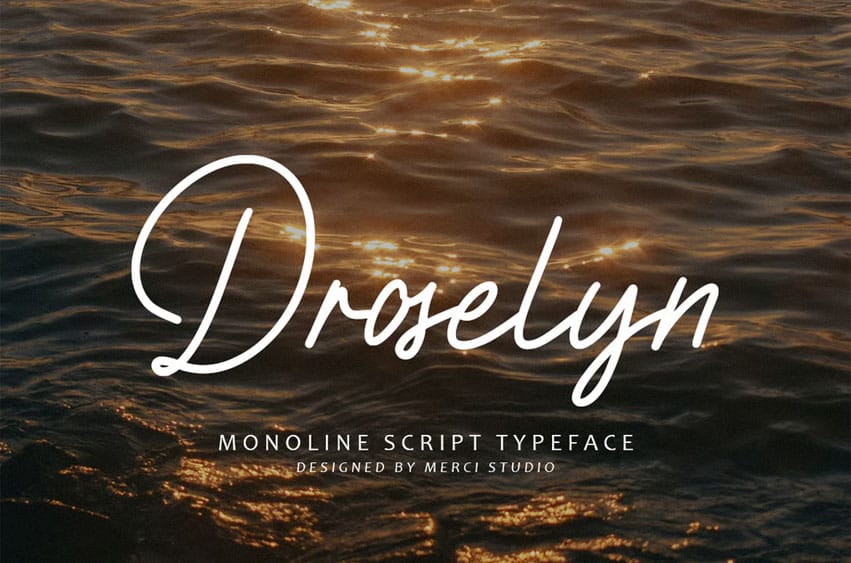
Droselyn Font is a graceful monoline script typeface that brings simplicity, warmth, and modern elegance into your designs. With its clean, fluid strokes, this font is perfect for branding, packaging, invitations, social media, and creative projects that seek a personal yet professional touch.
Droselyn captures the essence of handwritten charm while maintaining a polished and versatile style that works beautifully across both digital and print mediums. Its balance of minimalism and sophistication makes it ideal for designers aiming to create timeless and expressive typography.
- Uppercase Letters
- Ligature & Alternate Character
- Unique Hand-Drawn Style